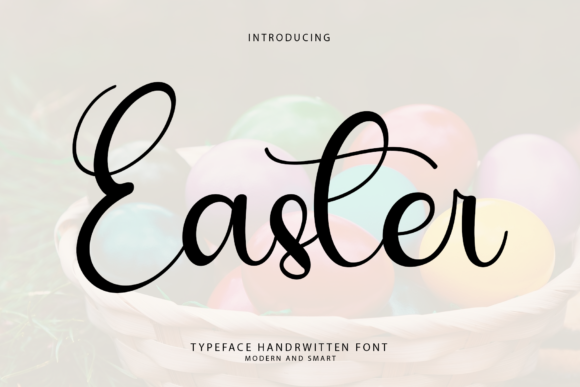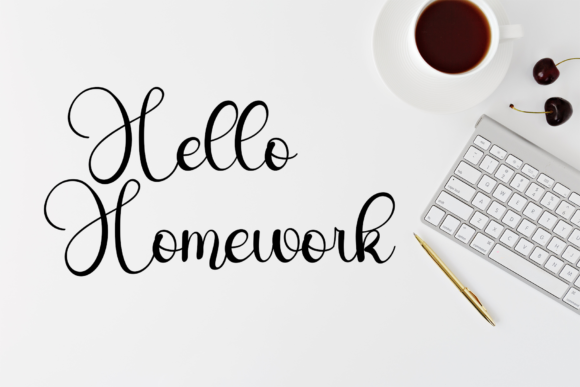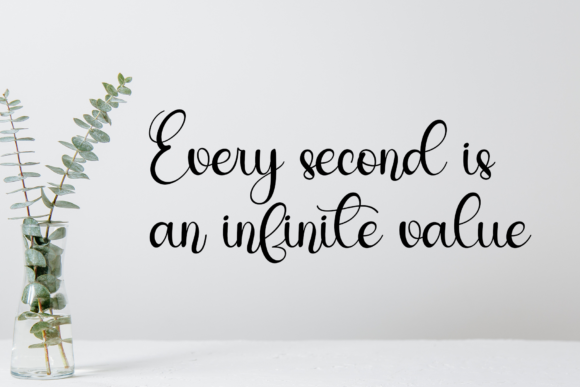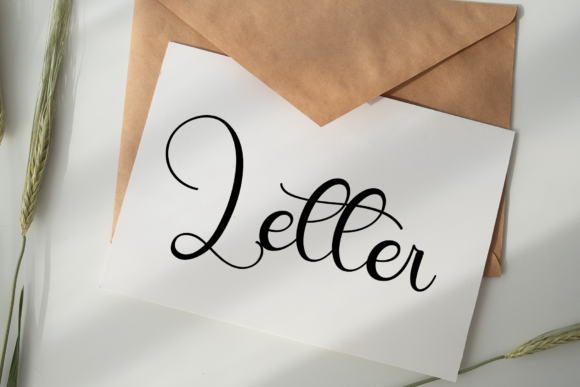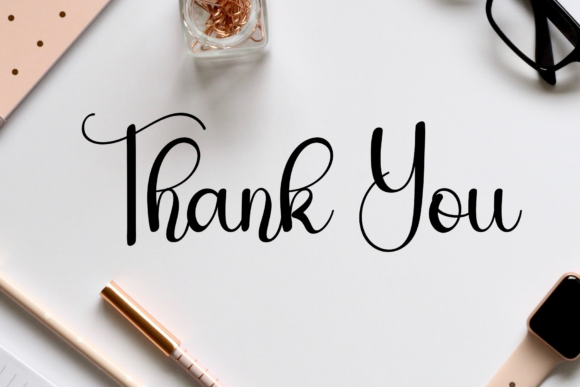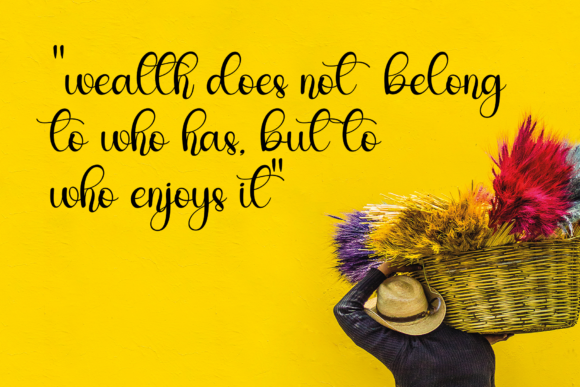
Easter Font
About Easter Font
Introducing Easter, a distinctive and round-lettered handwritten font meticulously crafted to bring your creative visions to life. This unique typeface is designed to produce exceptional results, making it a versatile choice for various applications such as writing titles, invitations, letters, and a wide array of other products.
The rounded letters of Easter contribute to its uniqueness, offering a playful and friendly aesthetic. This font isn’t just a typographic choice; it’s a creative tool that transforms ordinary text into visually appealing elements, adding a touch of character and charm to your projects.
Imagine Easter being the focal point in your designs, creating eye-catching titles that draw attention and set the tone for your content. Whether you’re crafting invitations that exude a festive spirit or infusing letters with a personal touch, Easter adds a distinctive flair to your typography.
The careful craftsmanship behind Easter ensures that it meets the desired standards, delivering results that stand out. Its versatility allows it to adapt to a range of products, offering a seamless blend of style and readability.
As you explore the possibilities with Easter, envision its application in various creative ventures. Picture it enhancing the charm of festive invitations, making titles pop in your designs, or simply adding a delightful touch to letters. Easter is not just a font; it’s the key to transforming your text into a unique and visually engaging expression of creativity.